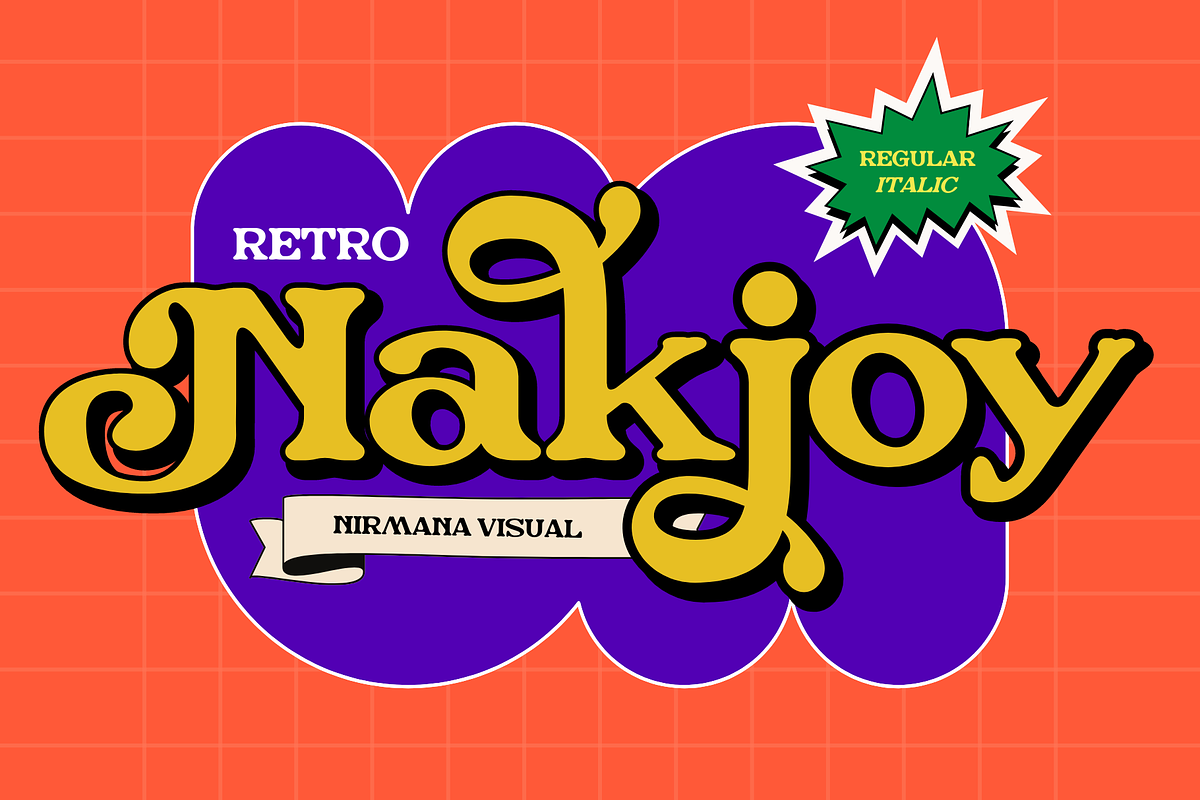
Retro Nakjoy - Branding Logo Font Free Download
Retro Nakjoy - Branding Logo Font Free Download is a bold and nostalgic typeface inspired by vintage aesthetics and retro signage. With its smooth curves, chunky letterforms, and strong personality, Retro Nakjoy is perfect for logos, brand identities, packaging, apparel, poster designs, and social media content that needs a fun and timeless vibe.
Whether you're channeling a groovy '70s look or crafting a playful throwback brand, this font brings instant charm and visual impact. Its carefully balanced design makes it ideal for both standalone logos and creative headline treatments.